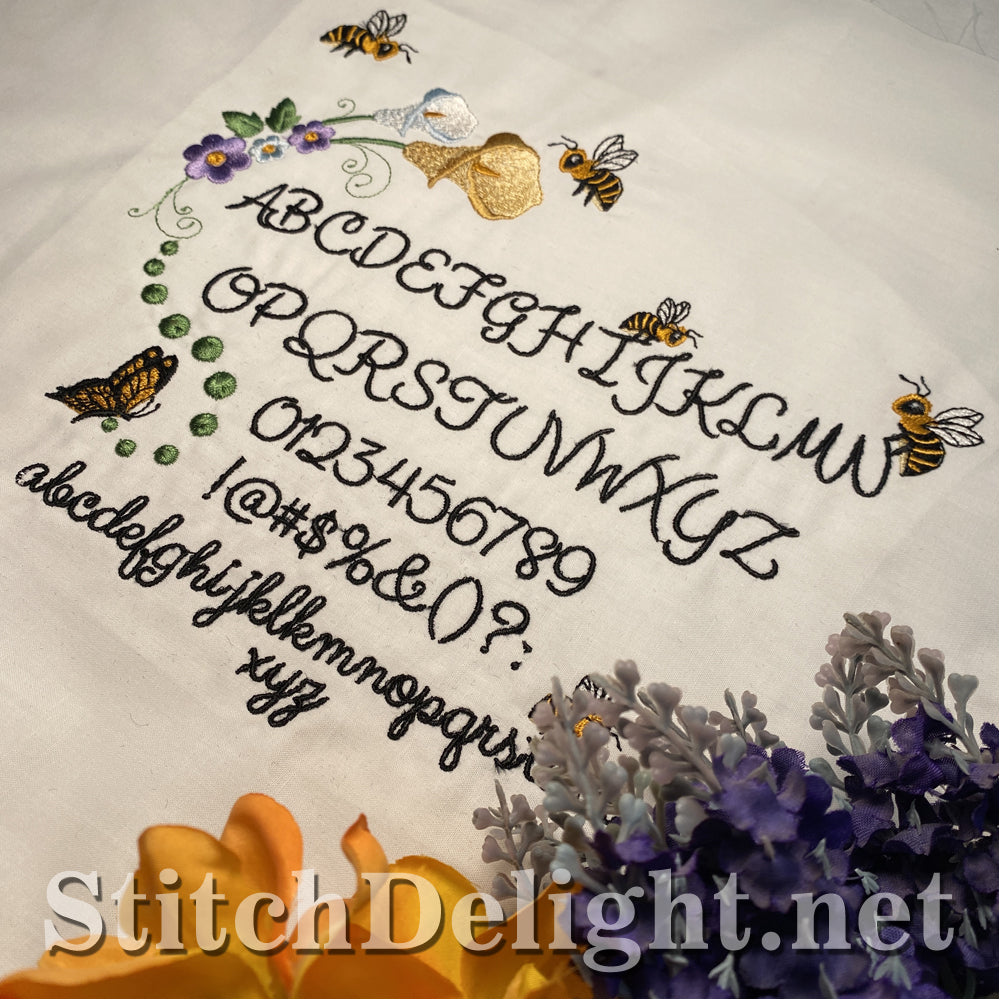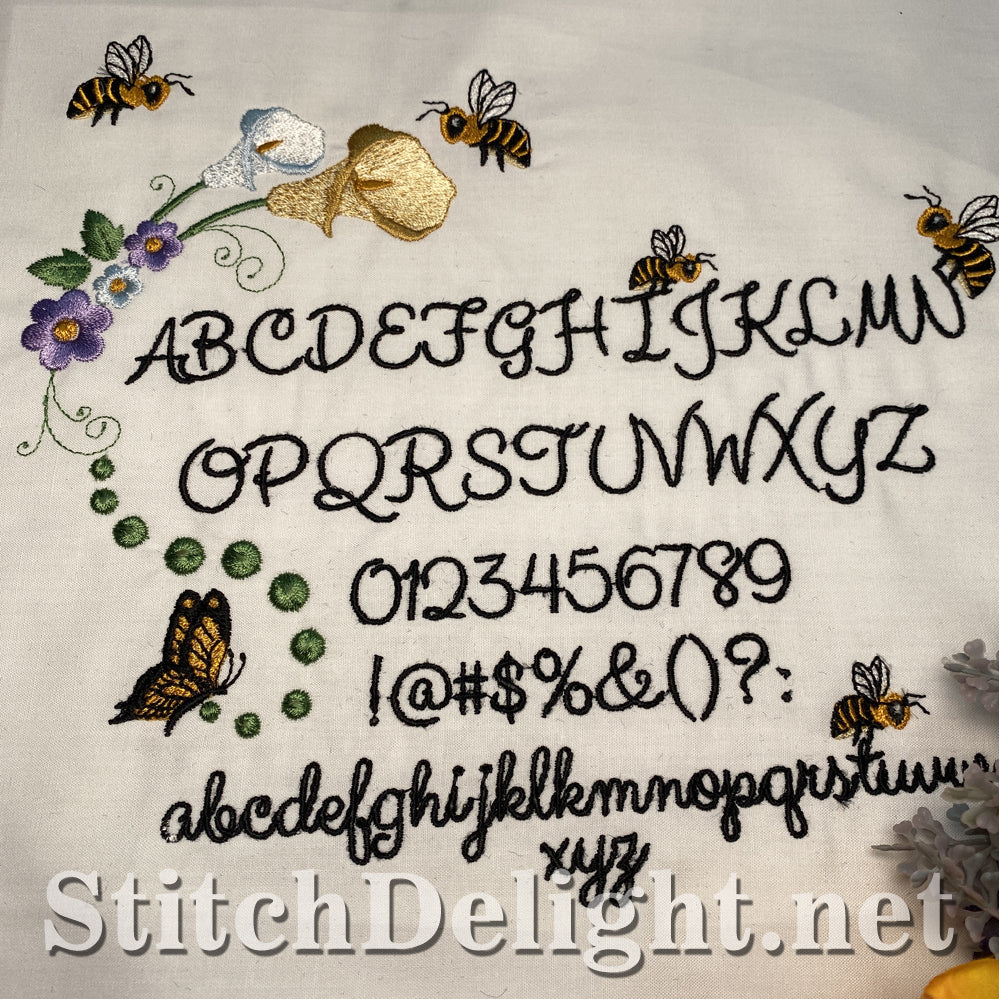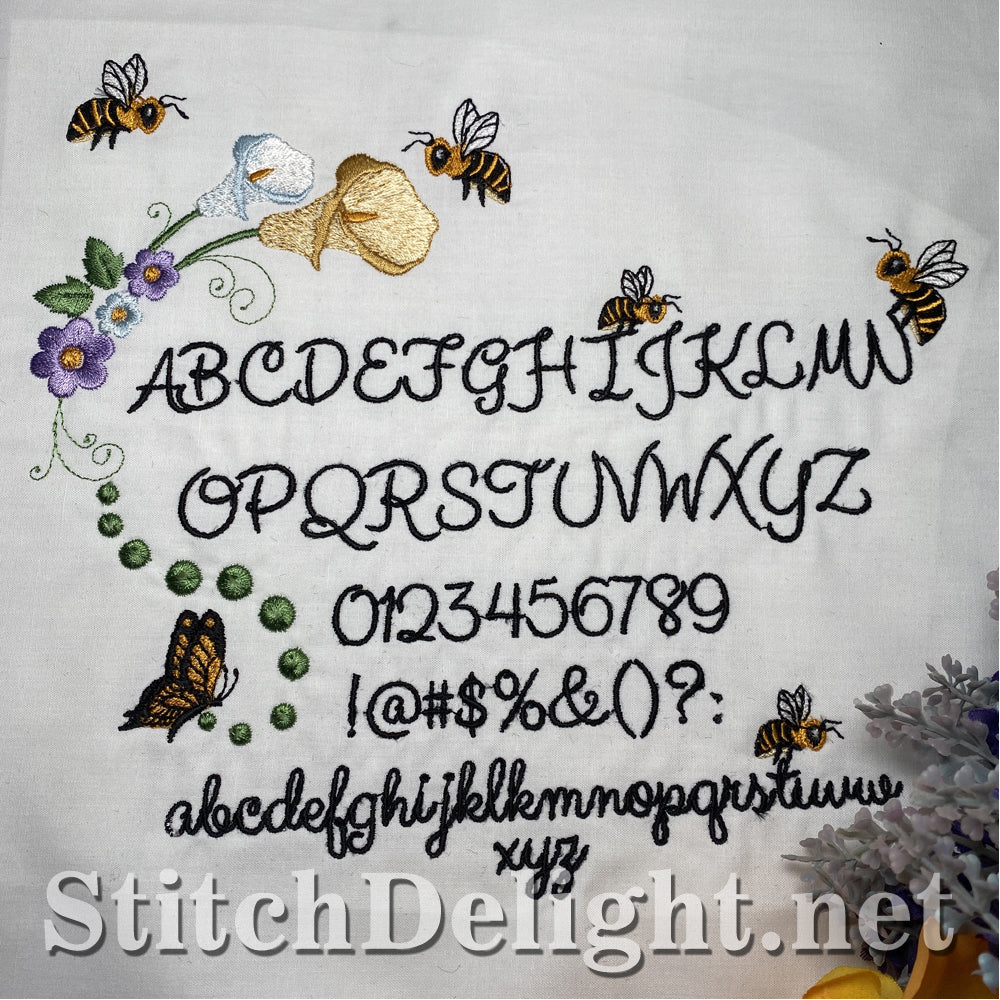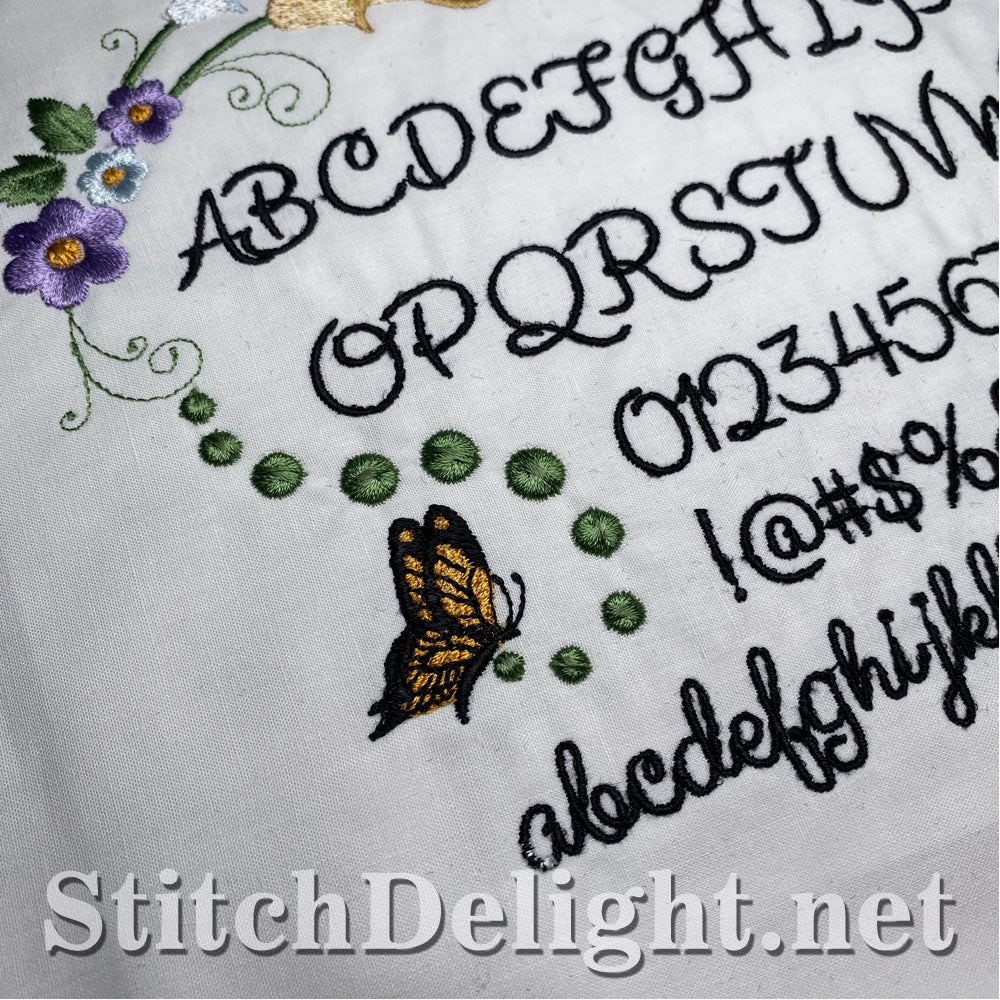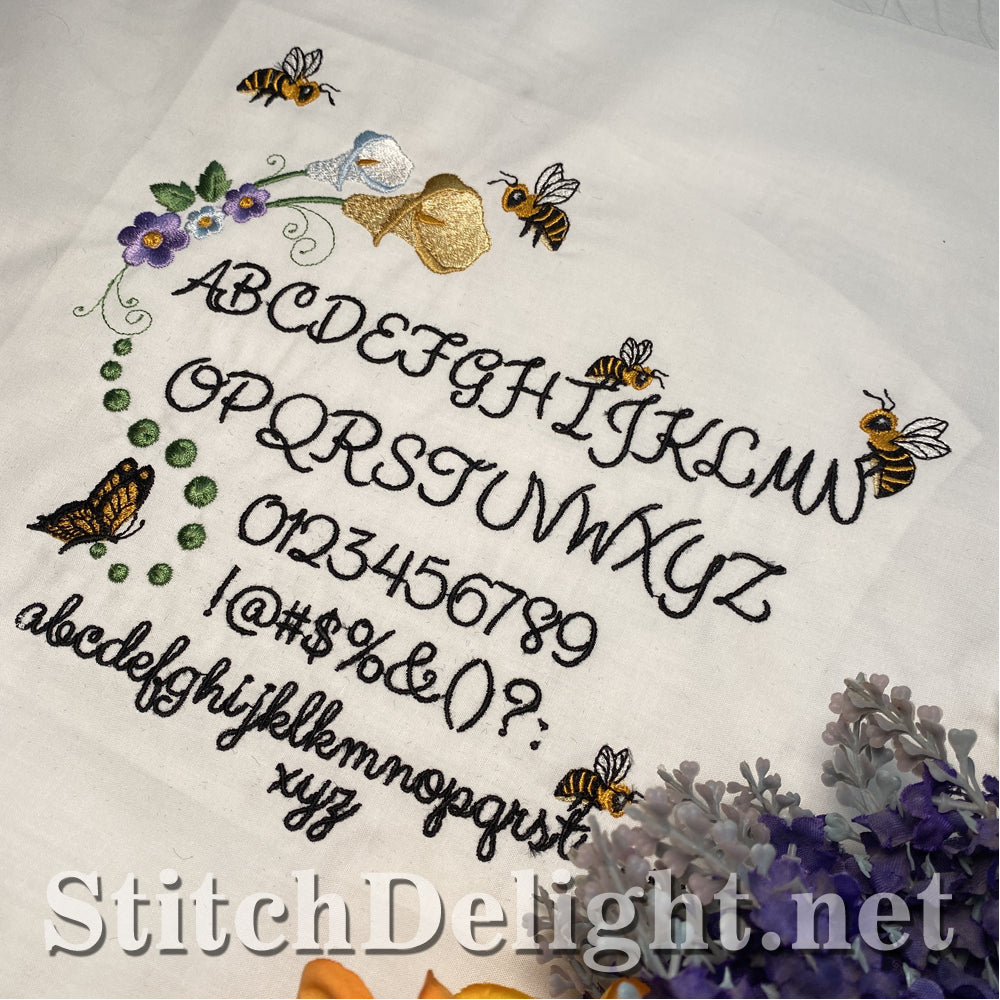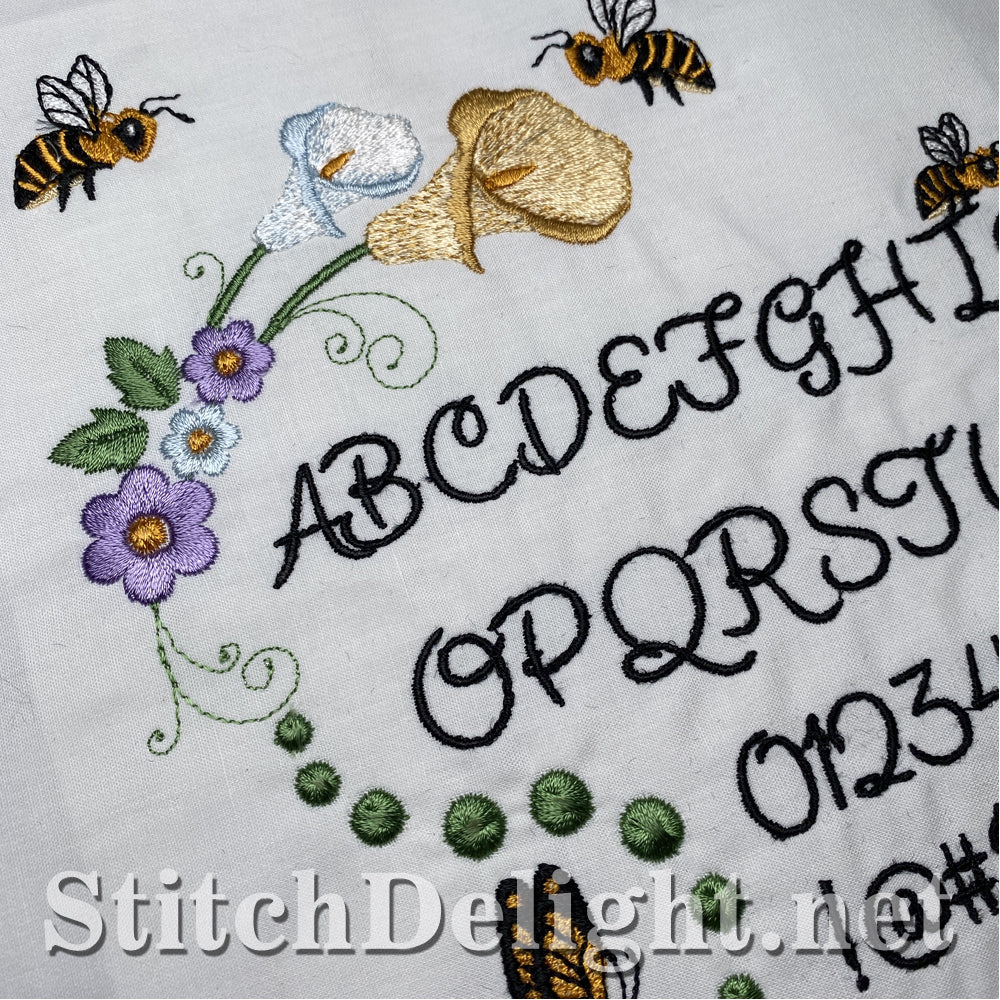
This lovely font is perfect for a beach or spring themed project, it has an average height of only 0.6" on the capital letters, idea for adding names to towels bags and hats.